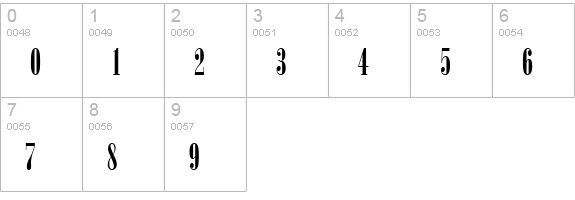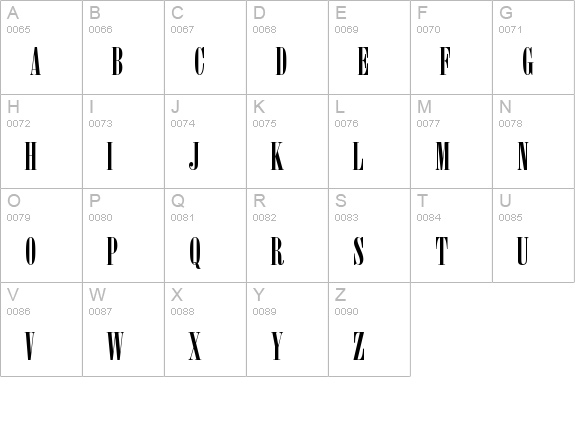
ArsisDEEReg Font Details
Introducing ArsisDEEReg font, a modern and stylish typeface that is perfect for a wide range of design projects. This versatile font features clean lines and a sleek design that will add a touch of sophistication to any project. ArsisDEEReg is a free font that is freely available to download at FontsMarket.com, making it accessible to designers of all skill levels. Whether you are creating a logo, branding materials, or a website, ArsisDEEReg is sure to make your designs stand out. With its unique style and easy readability, this font is a must-have for any designer looking to make a statement.